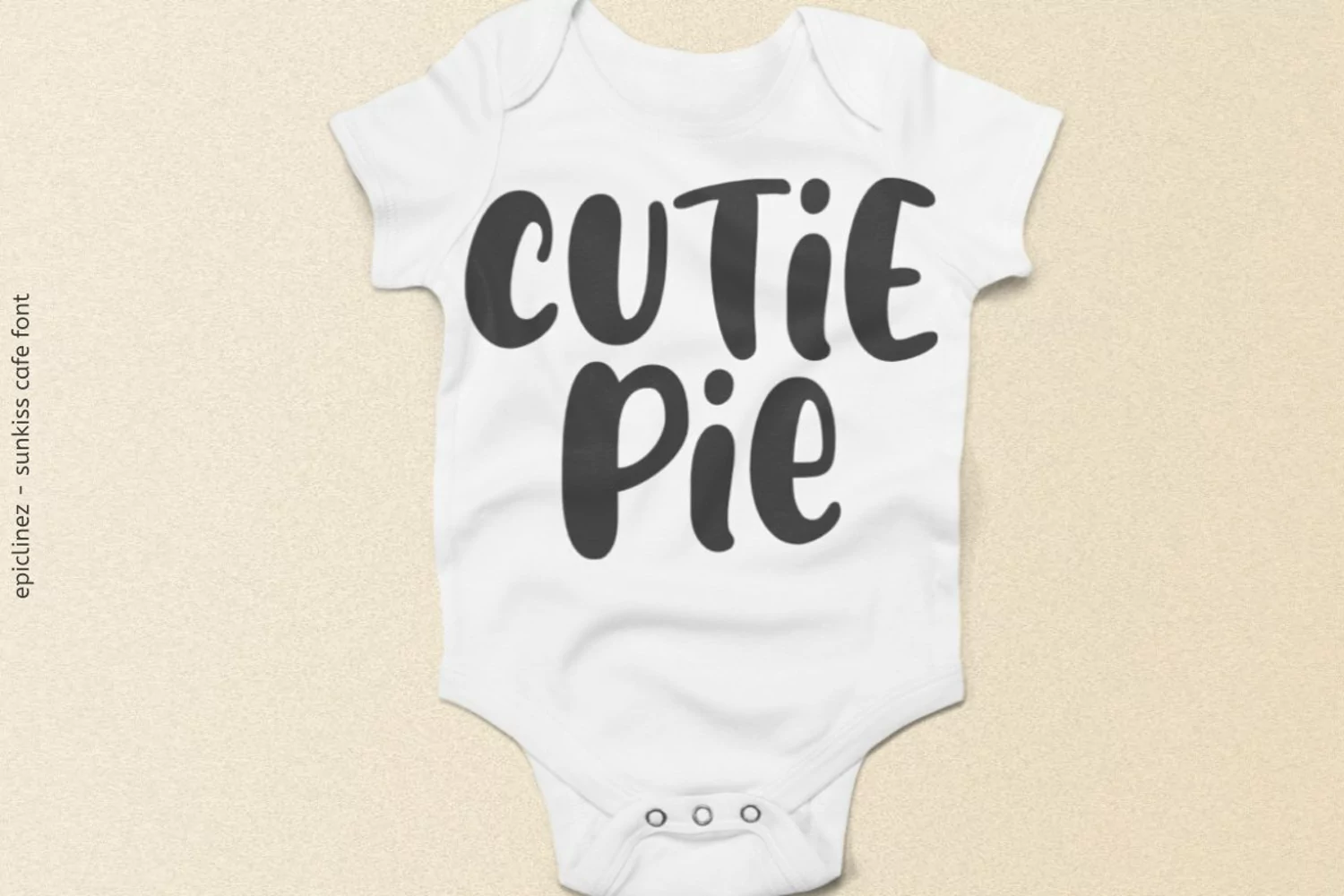
Sunkiss Cafe is a bold and fun display font. It will look outstanding in any context, whether it’s being used on busy backgrounds or as a standalone headline.
Sunkiss Cafe